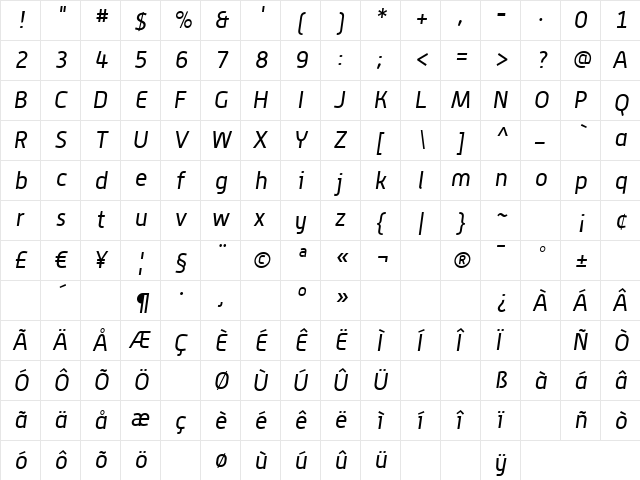
Alwyn Oblique
Design Context for Alwyn Typeface
Alwyn takes a measured approach to typography — its balanced proportions and neutral character make it a reliable workhorse for both digital and print work. The slanted form adds forward momentum and visual energy.
Pro Tip: Try Alwyn for annotation and caption copy alongside an upright companion — the contrast in angle creates a dynamic but ordered typographic system.